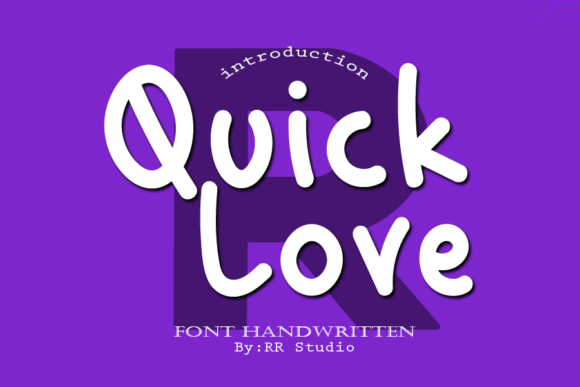
Welcome to the world of Quick Love Font, the ultimate font for adding a touch of charm to your creative projects! Quick Love Font, a beautiful script font from RR Studio, is designed to bring a unique, handwritten essence to all your designs. This font is perfect for those looking for an easy-to-use font for any project.
With its neat style and casual vibe, Quick Love Font is a true gem for creating wedding invitations, greeting cards, and social media graphics. Its flowing, handwritten style exudes elegance and sophistication, making it an excellent choice for branding and packaging designs.
At Quick Love Font, we believe that fonts are more than just letters – they are expressions of art and personality. Our font is meticulously crafted to convey a sense of warmth, love, and happiness. Whether you are designing digital content or creating physical products, Quick Love Font will add a touch of personal charm.
This cursive font is more than just a font; it's an experience that will transform your designs into works of art.
So why settle for ordinary fonts when you can have the extraordinary? Embrace the beauty of Quick Love Font today and elevate your designs to new heights!